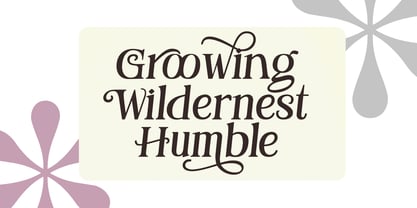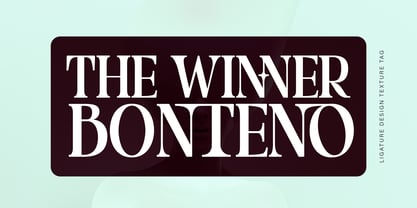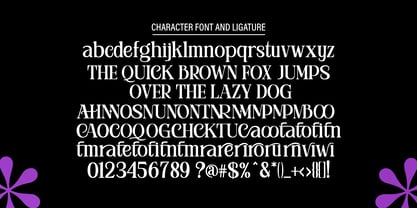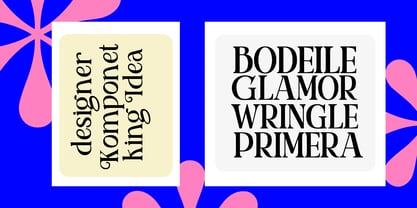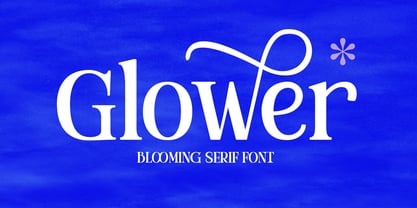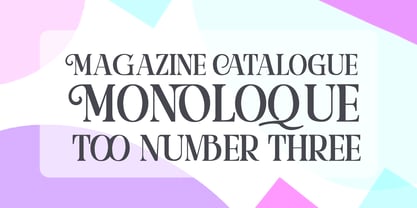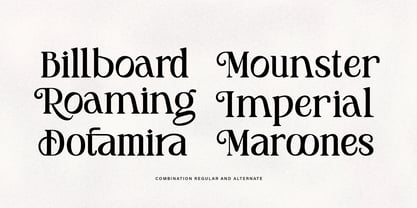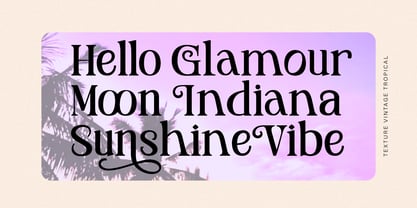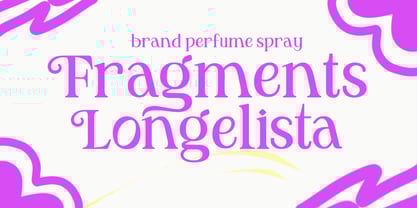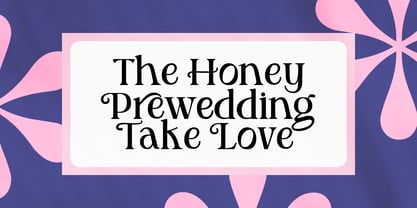
Glower
by Fontastic Lab
The Glower Font Family was designed by Bebby Lutfitharina and published by Fontastic Lab. Glower contains 2 styles and family package options.
Glower is a sans serif font with a varied set of alternate styles. It is a versatile blend of Geometric and Glower designs that offers both upright and italic character types for a strong frontispiece at large sizes and easy readability in freeform text;
Complementing its flexibility, the typeface offers alternate glyphs that can be accessed through a series of open type styles, further expanding its expressive potential for any design project.